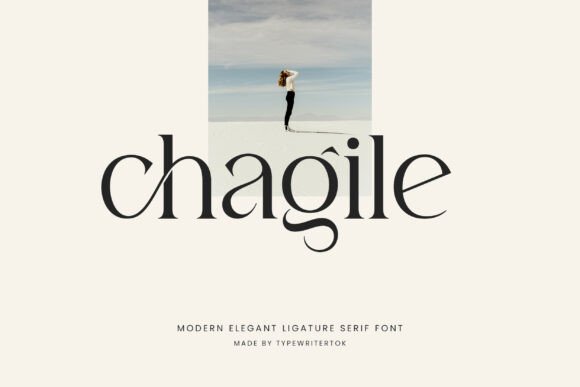
Introducing Chagile: A Sophisticated Serif Font for Elegant Designs
In the world of typography, a well-crafted font can elevate a design from ordinary to extraordinary. For those seeking a serif font that exudes timeless elegance, sophistication, and luxury, look no further than Chagile. This stunning font is designed to blend classic charm with modern flair, making it perfect for a wide range of graphic design applications.
The Beauty of Chagile
Chagile is a masterfully crafted serif font that boasts graceful letterforms, refined style, and exquisite ligature details. Its elegant design makes it an ideal choice for projects that demand beauty, class, and a touch of luxury. Whether you’re working on branding materials, product packaging, logos, or wedding stationery, Chagile is the perfect choice to add a level of sophistication to your designs.
Key Features of Chagile
- Sophisticated Serif Design: Chagile’s serif design is both classic and modern, making it versatile enough to work in a variety of design contexts.
- Elegant Ligature Details: The font’s ligature details add an extra layer of sophistication, making it perfect for designs that require a touch of luxury.
- Refined Style: Chagile’s refined style ensures that it looks great in both large and small sizes, making it suitable for a wide range of applications.
- Timeless Elegance: Unlike trendy fonts that quickly go out of style, Chagile’s timeless elegance ensures that your designs will remain stylish for years to come.
Use Cases for Chagile
Chagile’s versatility makes it suitable for a wide range of graphic design applications, including:
- Branding Materials: Use Chagile to create elegant logos, business cards, and letterheads that reflect your brand’s sophistication and luxury.
- Product Packaging: Add a touch of luxury to your product packaging with Chagile’s elegant design.
- Wedding Stationery: Make your wedding stationery stand out with Chagile’s beautiful and elegant design.
- Logos and Icons: Use Chagile to create stunning logos and icons that reflect your brand’s elegance and sophistication.
Why Choose Chagile?
With so many fonts available, why choose Chagile? Here are just a few reasons:
- Unique Design: Chagile’s unique design sets it apart from other serif fonts, making it a great choice for designers looking for something distinctive.
- High-Quality Typography: Chagile is crafted with attention to detail, ensuring that it looks great in any design context.
Tips for Using Chagile Effectively
To get the most out of Chagile, here are a few tips:
- Use it Sparingly: While Chagile is a beautiful font, it’s best used sparingly to add emphasis to key design elements.
- Experiment with Ligatures: Chagile’s ligature details are a key feature, so experiment with different combinations to add visual interest to your designs.
- Pair it with Other Fonts: Chagile pairs well with other fonts, so don’t be afraid to experiment with different combinations to create a unique look.
In conclusion, Chagile is a sophisticated serif font that offers a unique blend of timeless elegance and modern flair. Its elegant design, refined style, and exquisite ligature details make it perfect for a wide range of graphic design applications. Whether you’re working on branding materials, product packaging, logos, or wedding stationery, Chagile is the perfect choice to add a touch of luxury to your designs.